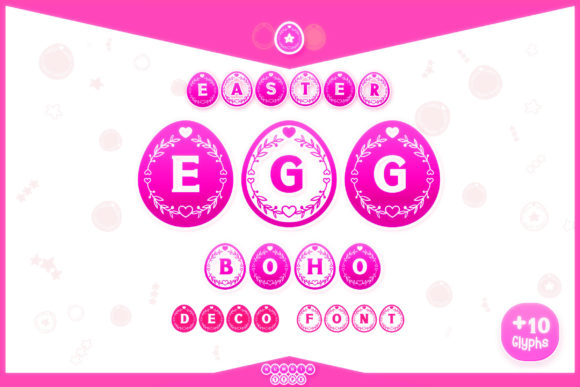
Step into a world of whimsy and charm with Easter Egg Boho, a font that exudes a distinctive, decorative flair. Its playful and vibrant characters dance across the page, evoking a delightful sense of joy and creativity. As a decorative font, Easter Egg Boho transforms ordinary words into captivating works of art, adding a touch of magic to any project.
Imagine transforming your social media posts, blog headers, and marketing materials with Easter Egg Boho's captivating presence. Its unique style commands attention, captivating your audience with its eye-catching charm. The font's playful personality shines through, creating a welcoming and inviting atmosphere that resonates with viewers.
For those with a passion for crafting, Easter Egg Boho is your perfect companion. Design captivating stickers that add a personal touch to your belongings, or create custom mugs that radiate warmth and cheer. Unleash your creativity by designing t-shirts adorned with Easter Egg Boho's charming characters, spreading joy wherever you go.
Embrace the beauty of the outdoors with Easter Egg Boho, the perfect font for capturing the essence of nature. Whether creating stunning ornaments for your home or designing invitations for an Easter celebration, this font adds a touch of whimsy and enchantment. It effortlessly captures the vibrant spirit of spring, bringing a sense of renewal and growth to your creations.
With Easter Egg Boho, the possibilities are endless. Its versatility extends to a wide range of creative projects, from eye-catching posters to personalized greeting cards. Let your imagination soar as you explore the endless ways to incorporate this delightful font into your designs.